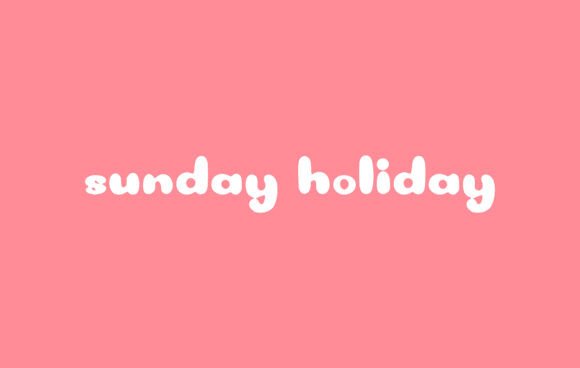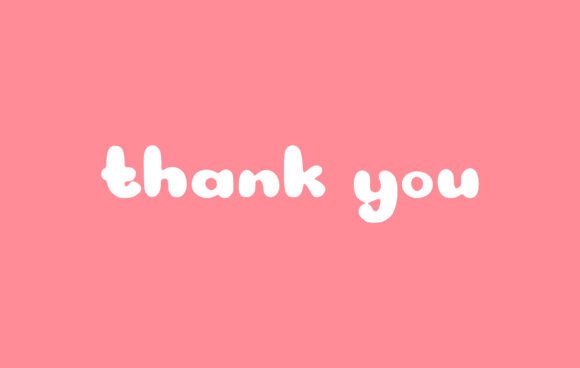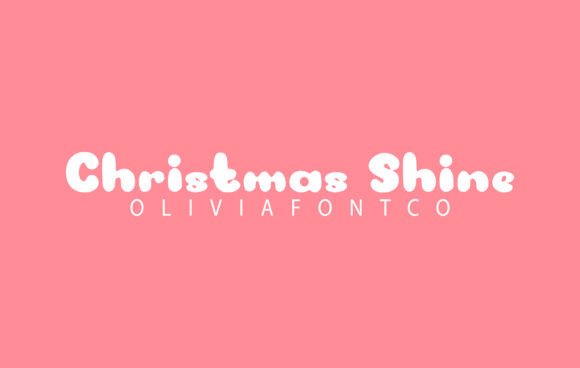
Introducing Christmas Shine Font: The Ultimate Choice for Your Holiday Designs
Are you looking for a font that can add a touch of romance and elegance to your holiday designs? Look no further than Christmas Shine Font! This authentic handwritten font is expertly designed to capture the essence of the holiday season, making it the perfect choice for designers and crafters alike.
What Makes Christmas Shine Font So Special?
Christmas Shine Font is more than just a font – it’s an experience. With its romantic touch and authentic handwritten feel, this font has the potential to take your creative ideas to the highest level. Whether you’re designing magazine headlines, social media graphics, or wedding invitations, Christmas Shine Font is the perfect choice.
Legibility and Versatility
One of the standout features of Christmas Shine Font is its legibility. This font is designed to be easy to read, making it perfect for use as both title and body text. Its versatility is also a major plus, as it can be used for a wide range of designs, from holiday cards and invitations to branding and social media graphics.
Perfect for Holiday Designs
Christmas Shine Font is specifically designed with the holiday season in mind. Its elegant and romantic feel makes it perfect for use in holiday designs, such as:
- Christmas cards and invitations
- Holiday party flyers and posters
- Magazine headlines and articles
Why Choose Christmas Shine Font?
So why choose Christmas Shine Font over other fonts on the market? Here are just a few reasons:
- Unique and Authentic: Christmas Shine Font is a truly unique and authentic font that will set your designs apart from the crowd.
- Elegant and Romantic: This font has a romantic and elegant feel that is perfect for holiday designs.
- Legible and Versatile: Christmas Shine Font is easy to read and can be used for a wide range of designs.
- Expertly Designed: This font is expertly designed to capture the essence of the holiday season.
Tips for Using Christmas Shine Font
Here are a few tips for getting the most out of Christmas Shine Font:
- Use it as a Title Font: Christmas Shine Font is perfect for use as a title font, adding a touch of elegance and sophistication to your designs.
- Pair it with Other Fonts: Try pairing Christmas Shine Font with other fonts to create a unique and eye-catching design.
Christmas Shine Font is a truly special font that is perfect for designers and crafters looking to add a touch of romance and elegance to their holiday designs. With its unique and authentic feel, legibility, and versatility, this font is sure to become a favorite in your design arsenal. So why wait? Download Christmas Shine Font today and start creating stunning holiday designs!